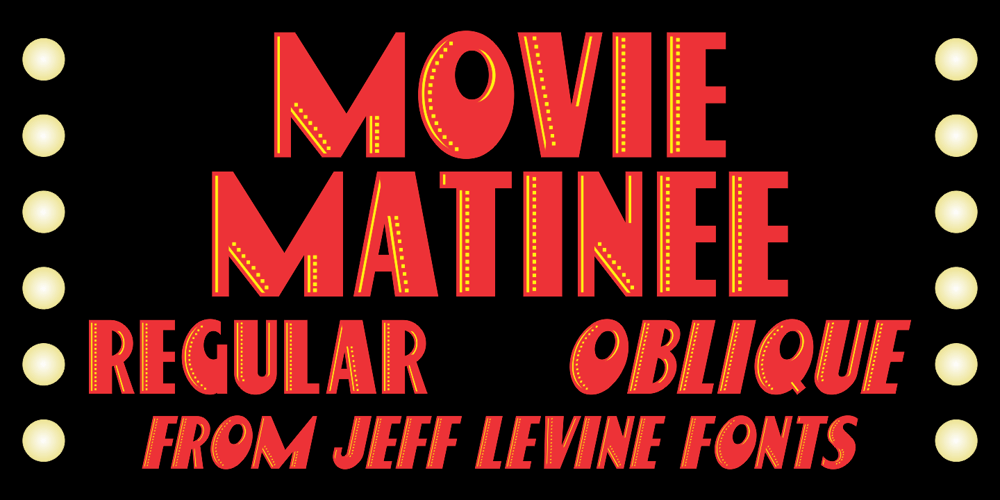
Movie Matinee JNL Font Family was designed by Jeff Levine and published by Jeff Levine. Movie Matinee JNL contains 2 styles and family package options. A 1926 trade ad for the silent comedy “The Nut-Cracker” starring Edward Everett Horton has the film’s title hand lettered in a decorative bold sans serif design complete with highlight lines and accent dots.This festive type face is now available digitally as Movie Matinee JNL in both regular and oblique versions.